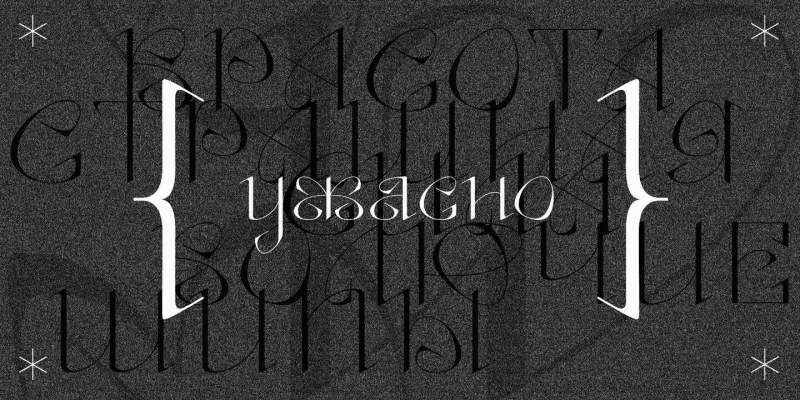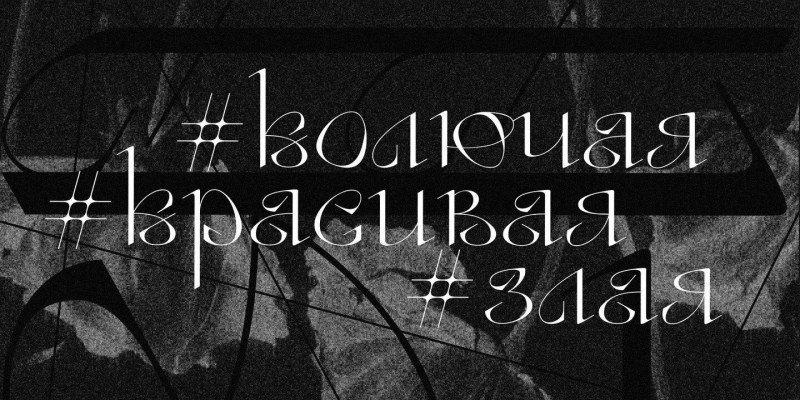
Stervella Font
Elegant and prickly; smooth and sharp; beautiful, but evil – Stervella – display typeface. Its serifs resemble the twisting branches and thorny thorns of a blackthorn, trying to prick neighboring letters. This font is inspired by the forms of ancient Uncial, combining antique with pointed gothic writing.
Where Stervella Font works best
Thumbnails and covers
Stervella Font is built to be recognised small. Three words, high contrast, and it survives being scaled to a phone screen.
Event and match posters
Display letters at full width make a date and a name readable across a room, which is all a poster has to do.
Merch and streetwear
Heavy display shapes print cleanly on fabric and stay legible when the garment moves.
What kind of work does Stervella Font suit?
It sits in the Display Fonts group and reads as display, display fonts, elegant, serif. That makes it a candidate wherever those qualities help: headings, packaging, social graphics and brand work. Set it at the size you plan to use before deciding.